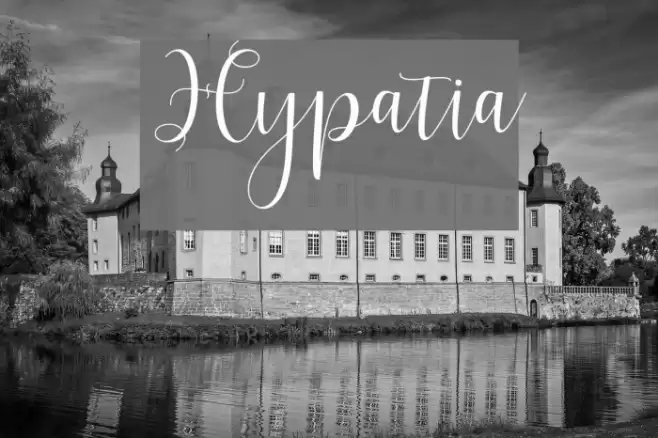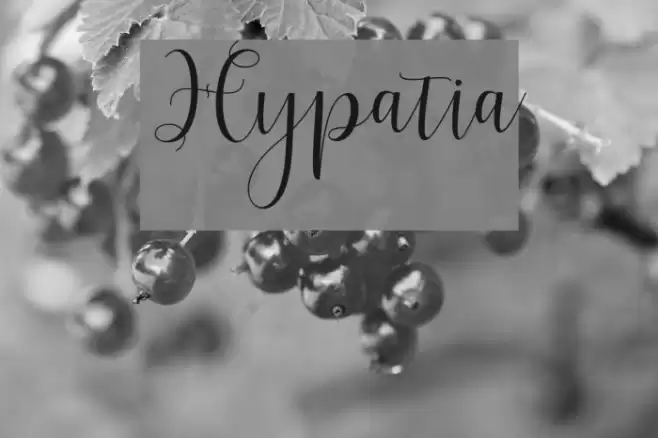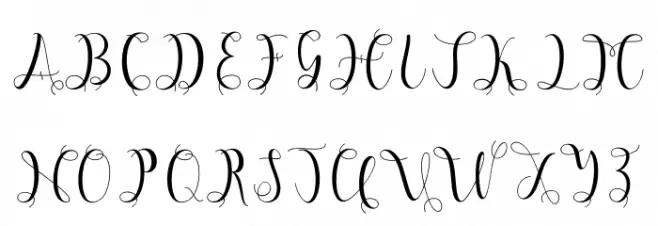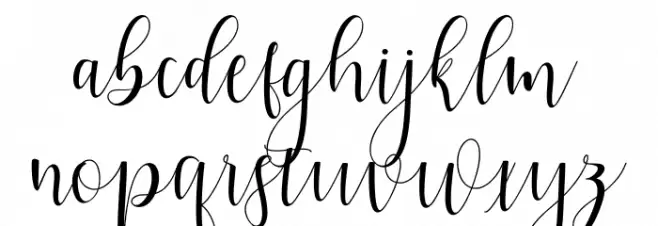
Hypatia Font
Hypatia Description
This elegant script font features a sophisticated and flowing design, characterized by its intricate loops and swirls. The uppercase letters are particularly ornate, with elaborate flourishes that extend beyond the baseline and cap height, creating a sense of movement and grace. The lowercase letters maintain a more restrained elegance, with smooth curves and a consistent stroke width that enhances readability. The numerals are styled to match the overall aesthetic, with a slight slant and delicate curves. Special characters are thoughtfully designed, integrating seamlessly with the rest of the font. This font exudes a sense of luxury and refinement, making it ideal for high-end branding and formal invitations.
An elegant script font with intricate loops and flowing design, perfect for luxury branding from Uncategorized fonts.
- Proposed Projects: Ideal for wedding invitations, luxury brand logos, elegant stationery, and high-end product packaging.
- Overall Style: Elegant
- Use Case: Logos, Invitations, Branding